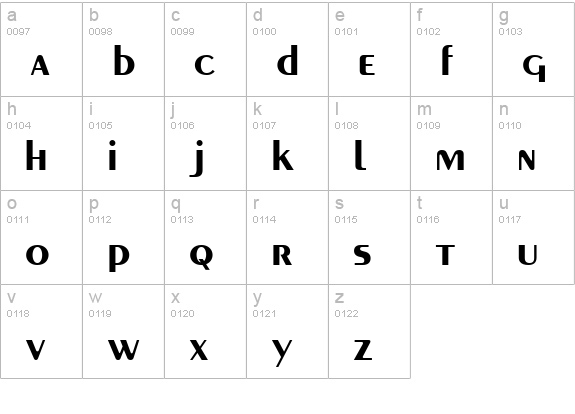
Carnati SSi Bold Font Details
Carnati SSi Bold is a strong, high-contrast variant in the Carnati typeface family \xE2\x80\x94 well suited to headlines, attention-grabbing titles, and strong calls-to-action.
Carnati SSi Bold is a striking and modern font that exudes confidence and style. With its bold and impactful design, this font is perfect for creating eye-catching headlines, logos, and branding materials. The strong lines and unique letter shapes make Carnati SSi Bold stand out from the crowd and leave a lasting impression on viewers. Best of all, Carnati SSi Bold is available for free download at FontsMarket.com. This means you can easily add this versatile font to your collection without breaking the bank. Whether you're a designer looking to spice up your projects or a business owner wanting to enhance your brand's visual identity, Carnati SSi Bold is a fantastic choice that won't cost you a dime. Download it today and start creating stunning designs with this exceptional font.